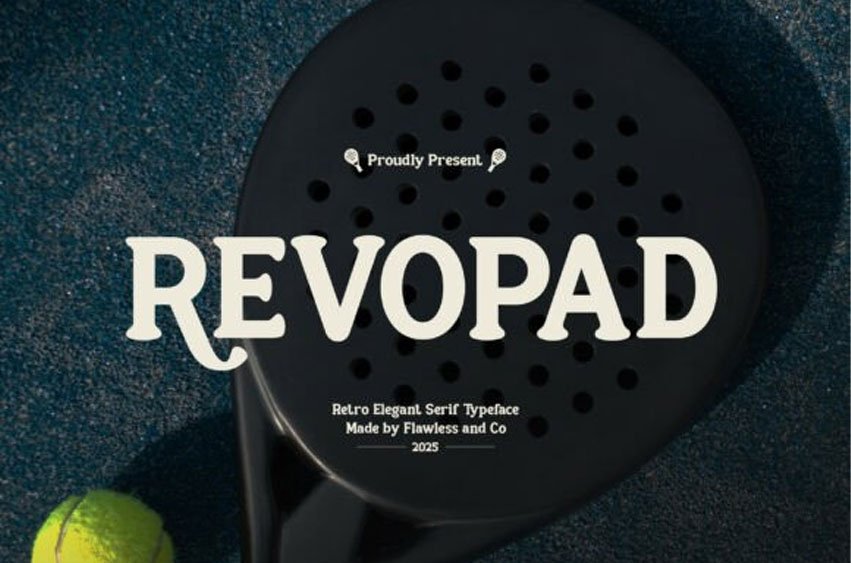
Revopad Font is a retro, elegant serif font that blends classic charm with modern refinement. Each letter is crafted with subtle curves and distinctive serifs, creating a timeless aesthetic that feels both nostalgic and sophisticated.
Its balanced proportions and graceful details make Revopad perfect for projects that demand style, confidence, and personality.